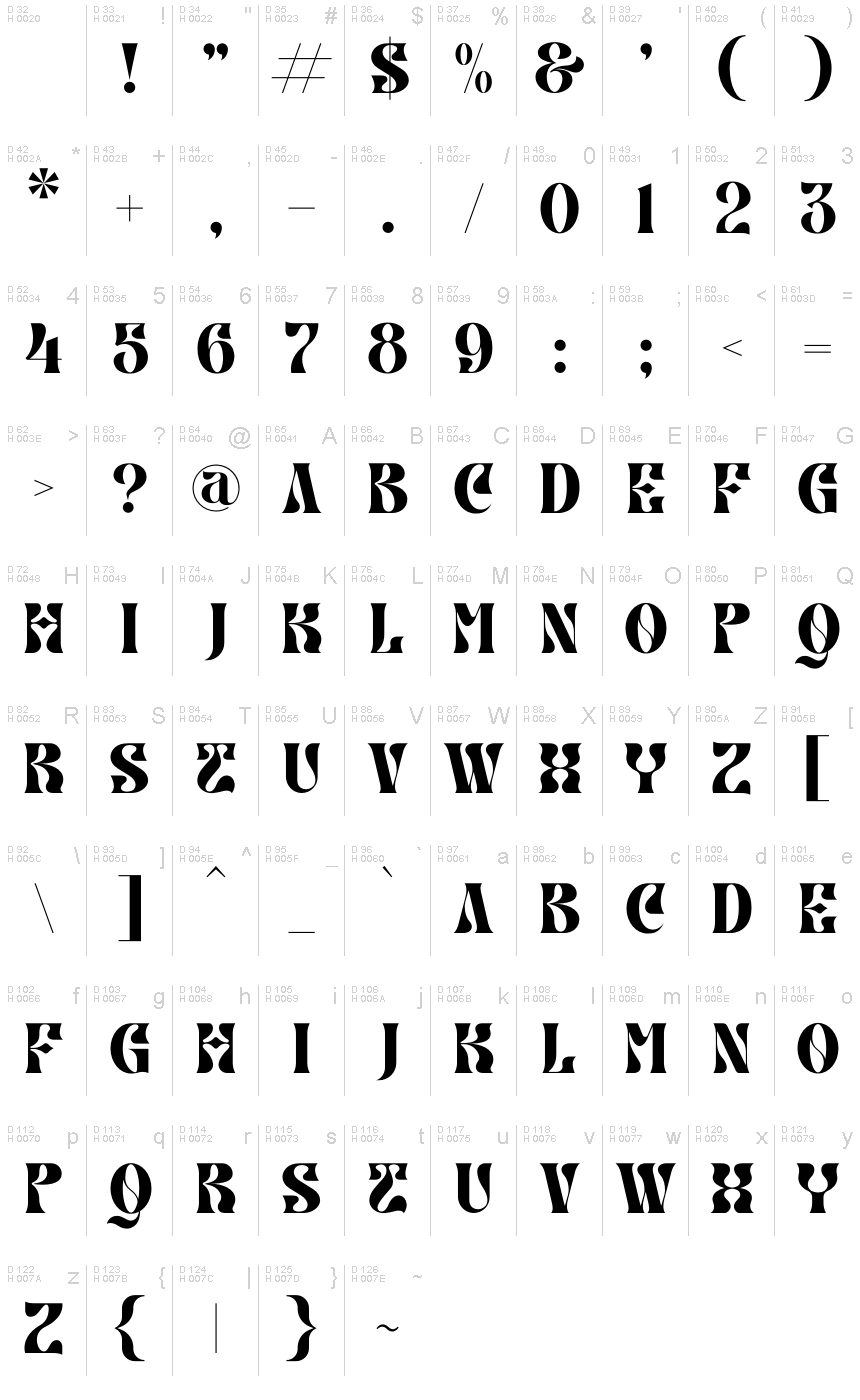
HEMAN
Heman by Storytype Studio is a bold, groovy display font that exudes a captivating, retro-inspired aesthetic. With its striking, geometric letterforms and distinctive character shapes, this font commands attention and evokes a sense of vibrant energy. The bold weight and confident presence of Heman make it an impactful choice for headlines, logotypes, and attention-grabbing design elements.
This versatile font lends itself well to a variety of contemporary design applications, from eye-catching event promotions and editorial layouts to dynamic branding and packaging designs. Heman's bold personality and retro-futuristic flair make it an excellent selection for adding a touch of stylish, vintage-inspired personality to any project.